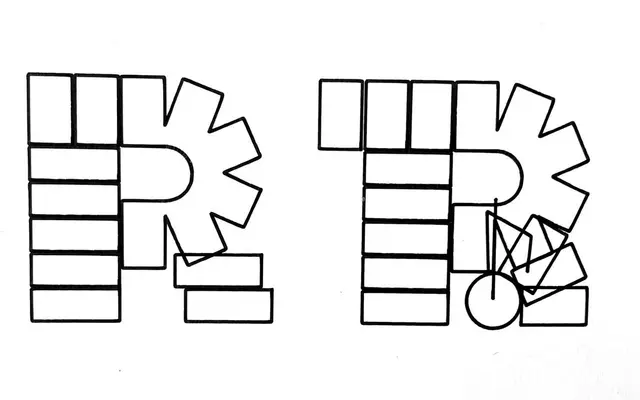
LL Tabletten
Lineto · Laurent Benner, Céline Odermatt, Anatole Couteau, Weichi He · 1999
LL Tabletten specimen from Lineto
A fully functional typeface extrapolated from the three-letter construction logic of the PEZ candy logo, with AM and PM shadow variants and a layerable Fill cut.
Originally released in 1999 as LL PEZ before a cease-and-desist from PEZ International prompted the rename, the typeface began as Laurent Benner's attempt to build a complete alphabet from the rigid geometry of just three branded letters. A 2022 redraw by Céline Odermatt introduced AM and PM versions casting shadows left or right to mimic the sun's position, while a subsequent collaboration with Anatole Couteau expanded the character set and added a brutalist stylistic set. Weichi He contributed the Fill cut, a negative-form layer designed to be stacked with the main styles to introduce colour.
Built entirely from the rigid construction logic of three PEZ candy logo letters, the typeface is a modular, three-dimensional display face with no conventional typographic heritage, making display the only fitting category.